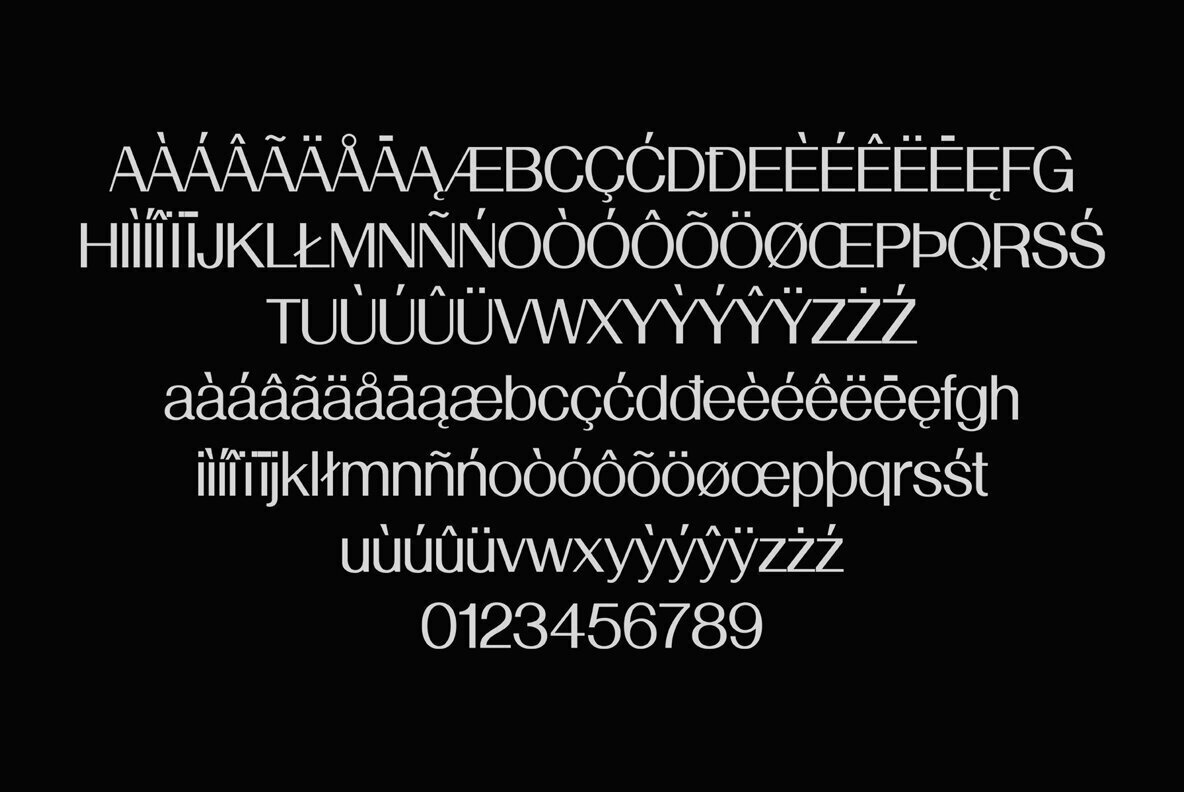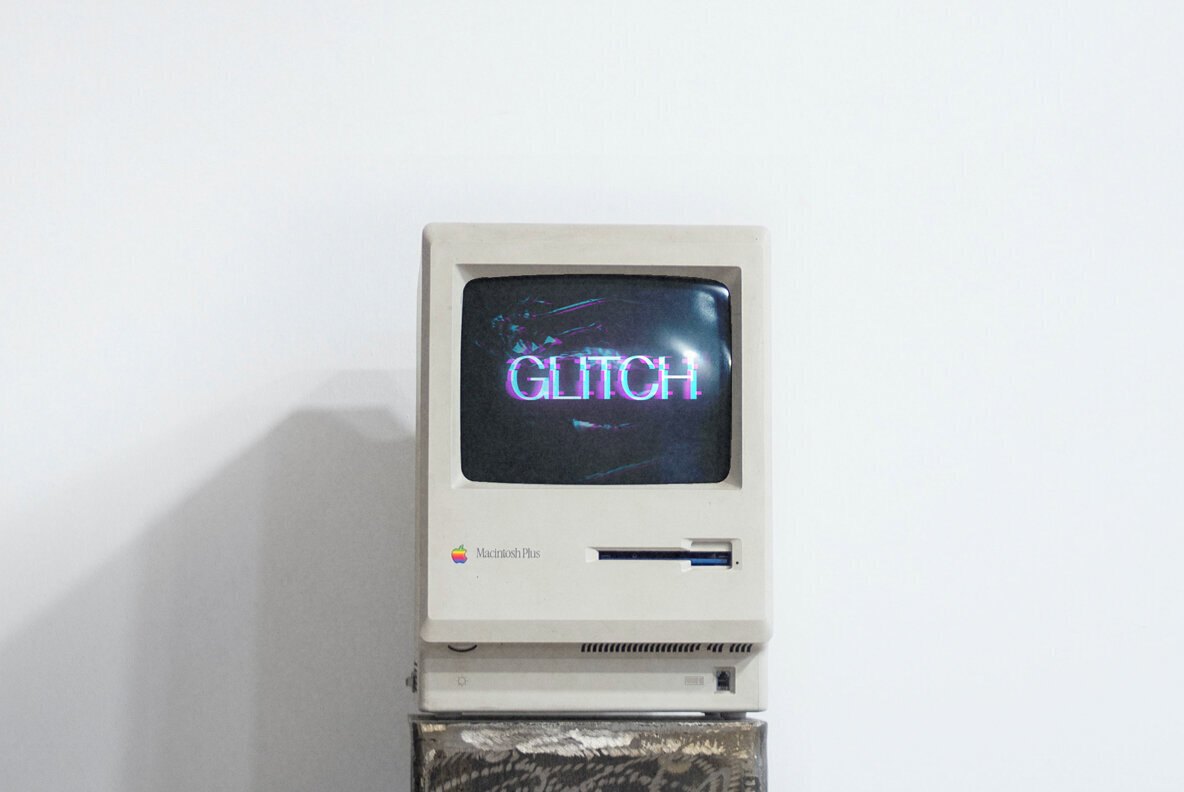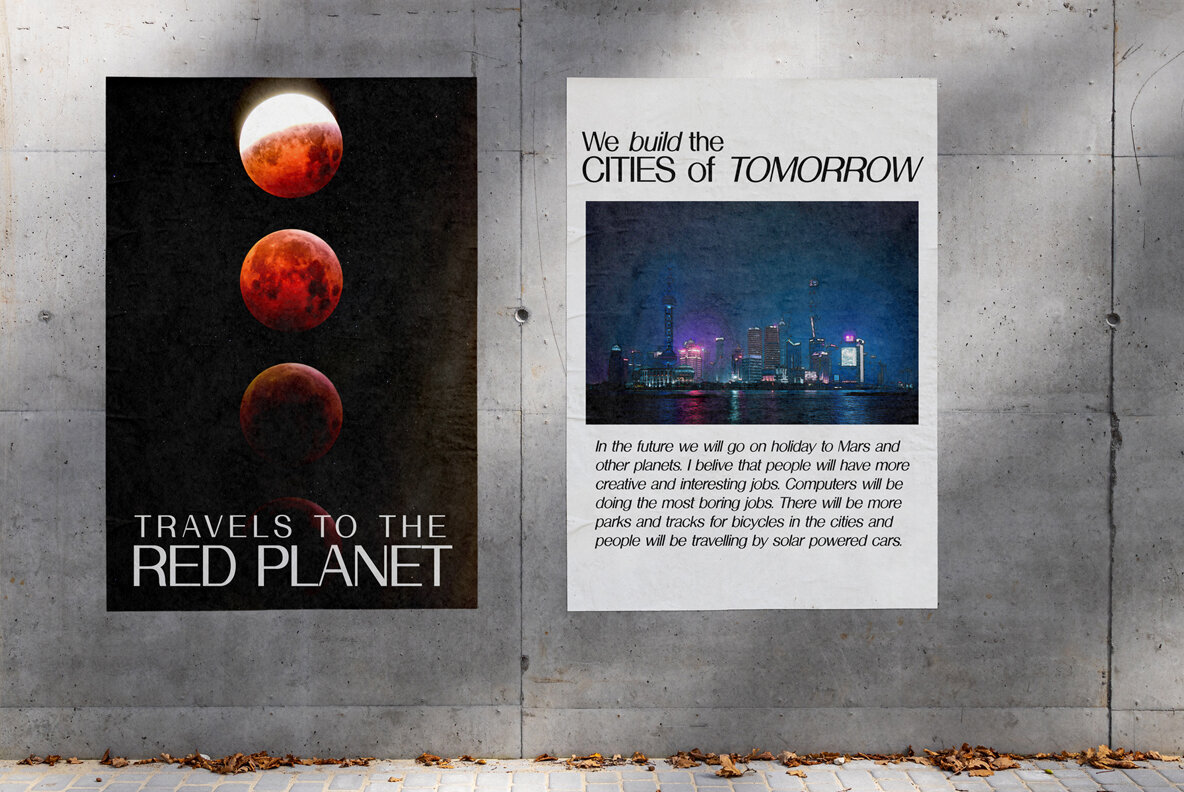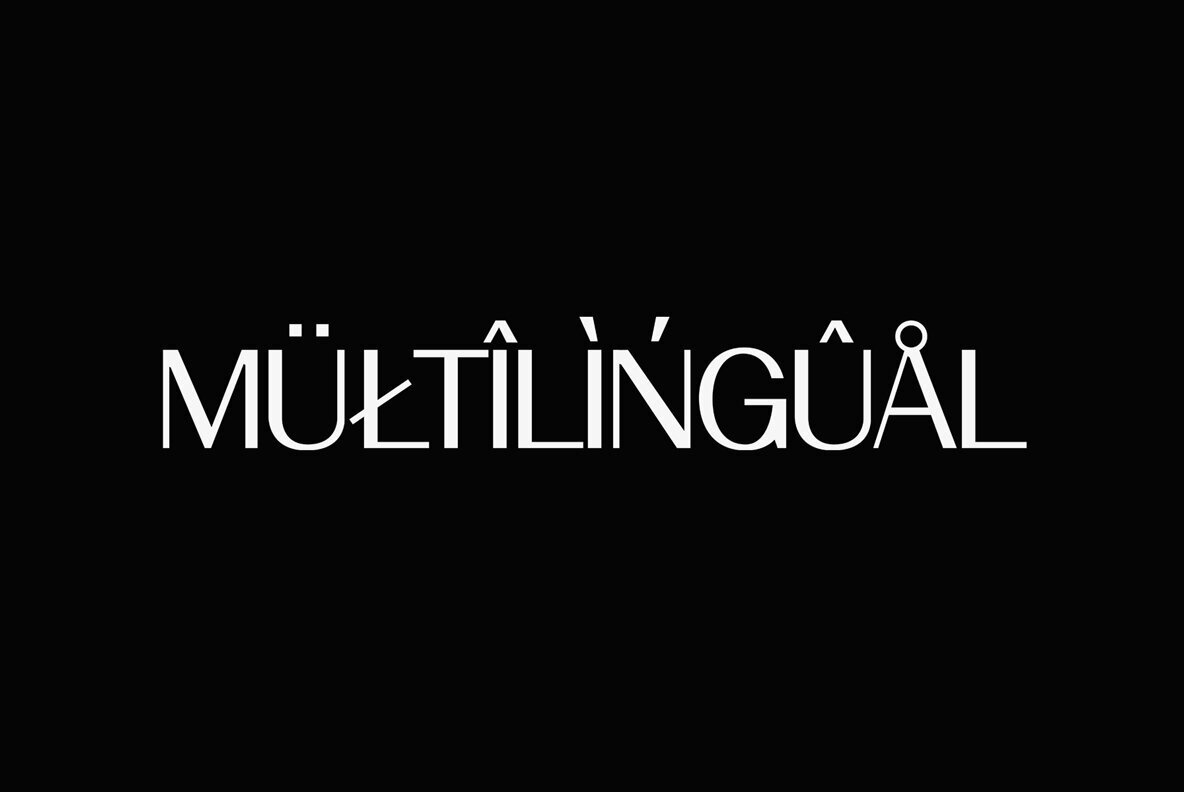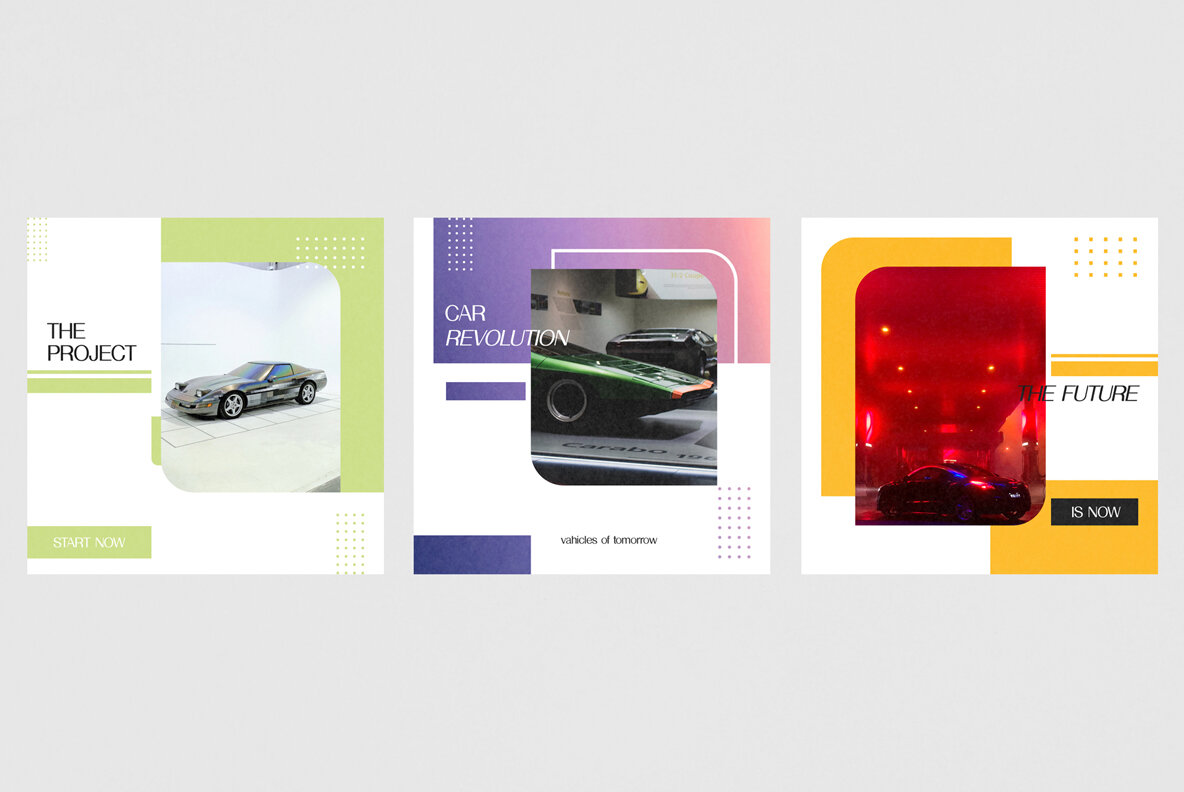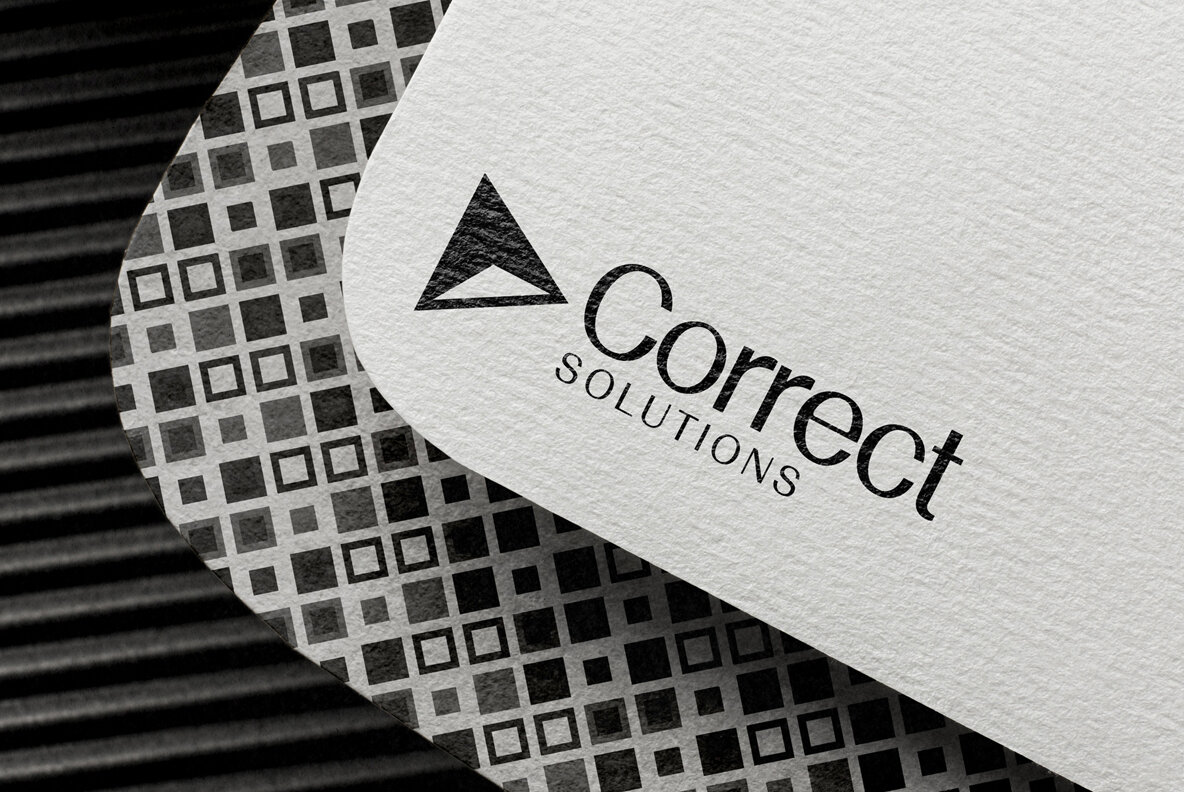
Bajtek Sans Font
Bajtek Sans Regular
Bajtek Sans Italic
Bajtek Sans is a sans serif typeface that captures the spirit of the transitional period from the 1970s futurism to the digital surge of the 1980s. It uniquely blends a sense of nostalgia with modern utility, presenting a delicate touch of imperfection that adds character to any design. This font is a versatile choice for text, headers, web content, logos, and branding applications. Its aesthetic, reminiscent of a bygone era, provides a logical choice for projects seeking a balance between retro and contemporary vibes. Features:Bajtek Sans: A Nostalgic Nudge to 70s and 80s Typography